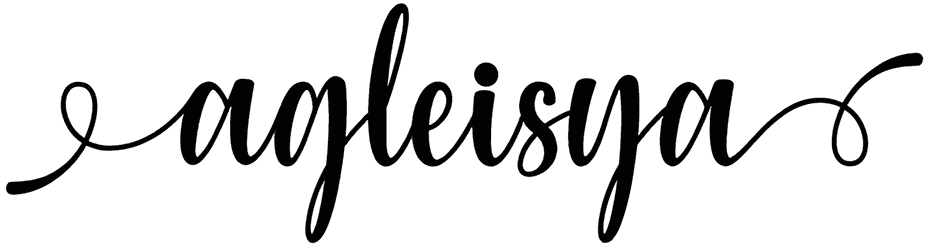
Agleisya Font
What can be more fun than a design with fetching and cute phrases? As a script font, Agleisya with a calligraphic face is an incredible apprise for your creations, including album covers, posters, stickers, greeting cards, and much more.
One thing you should consider in using this miracle is that it may challenge the reading. A vast number of lovely fonts in the RB would surpass all of your imagination, so never hesitate to check out our library!